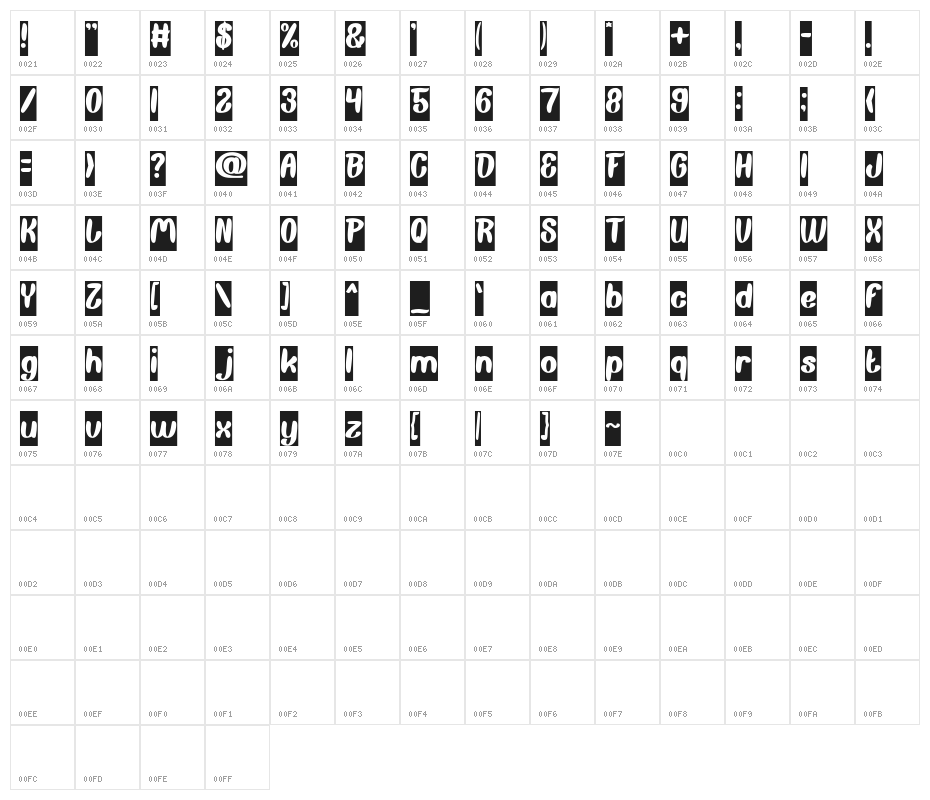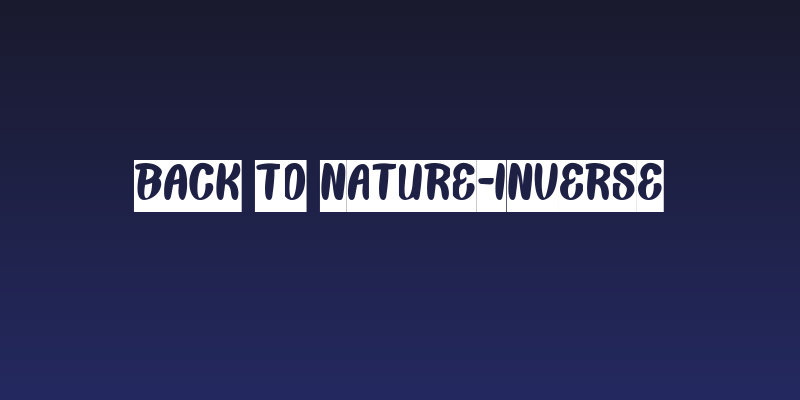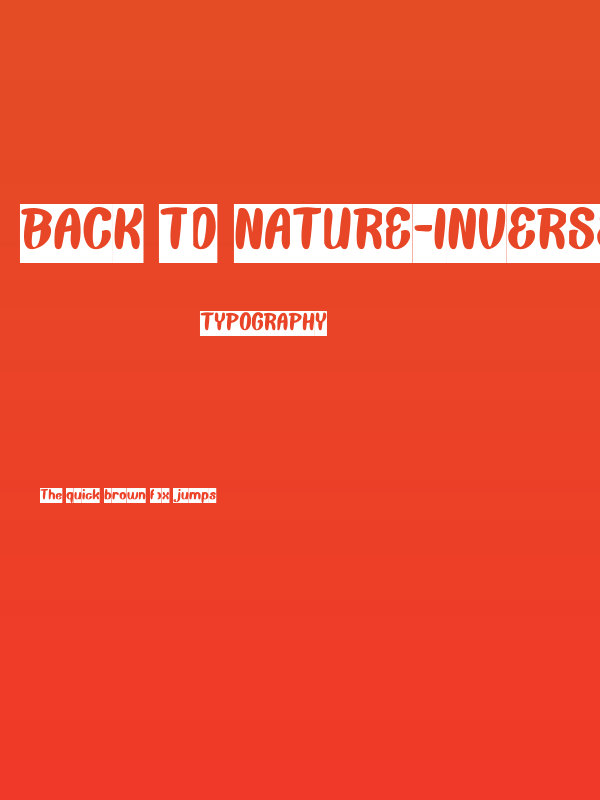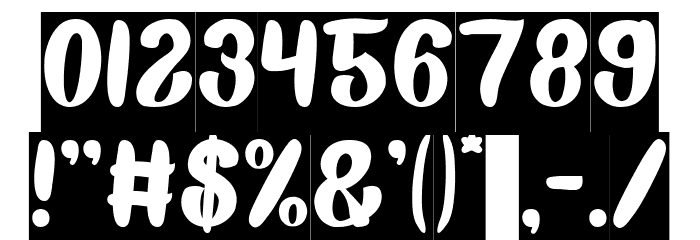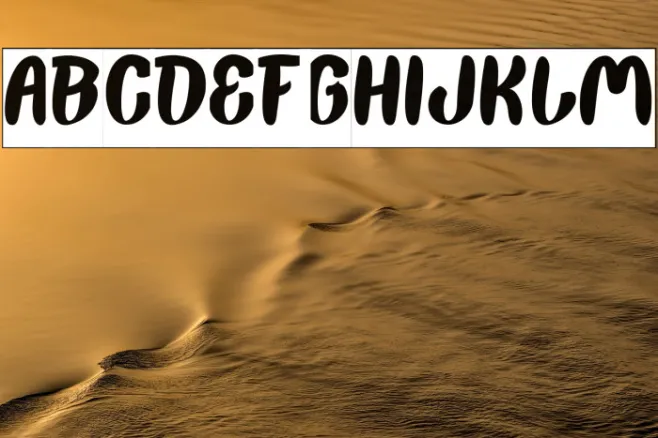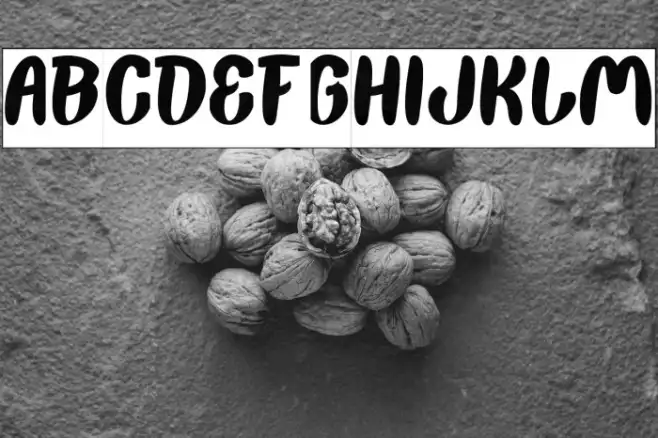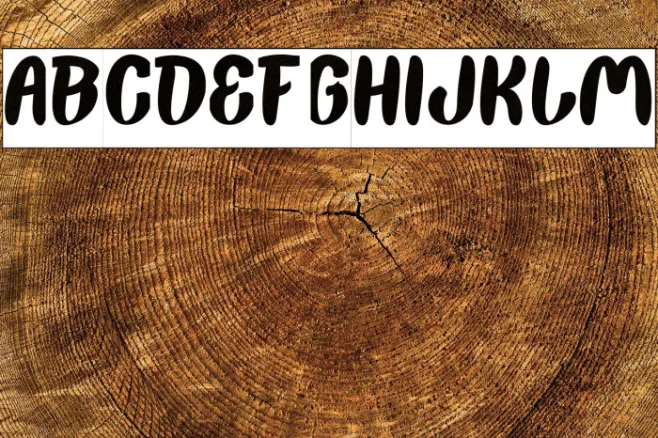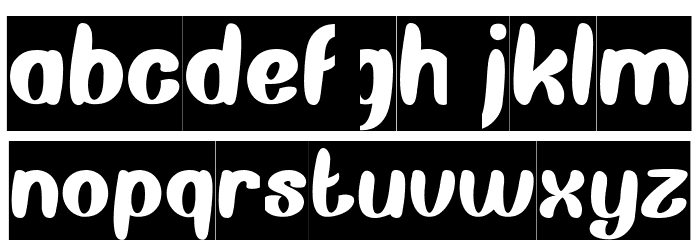
Back To Nature-Inverse Font
Back To Nature-Inverse Description
This font features a bold and playful style with a handwritten feel. The characters are rounded and slightly irregular, giving it a casual and friendly appearance. The uppercase and lowercase letters maintain a consistent flow, with smooth curves and a slight slant that adds to its informal charm. The numbers and special characters are designed to match the overall aesthetic, ensuring a cohesive look across all elements. This font is ideal for projects that require a touch of whimsy and creativity, making it suitable for children's books, playful branding, and eye-catching headlines.
| Overall Style | Playful, Casual |
| Proposed Projects | Ideal for children's books, playful branding, and eye-catching headlines. |